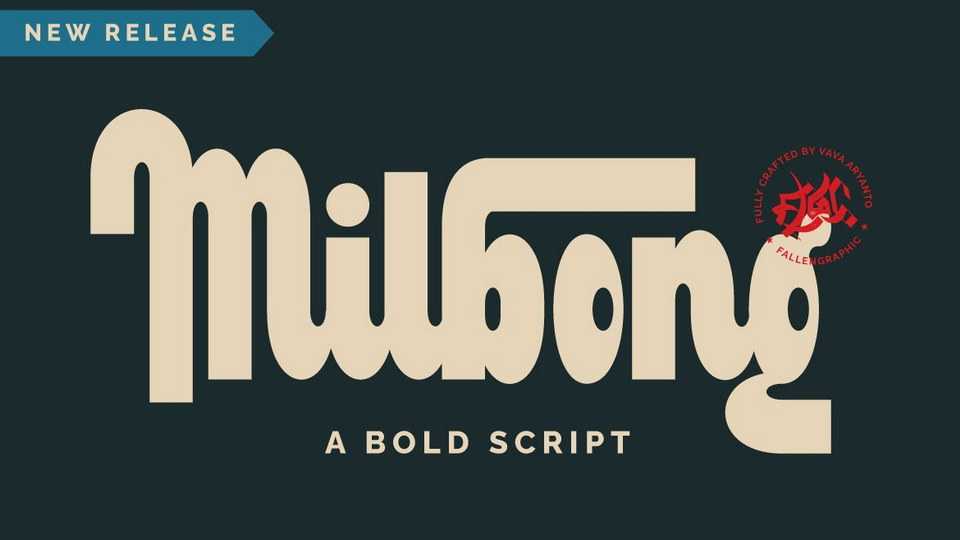
Download Milbong font, a bold script typeface designed under inspiration of vintage bar, hotel, barbershop signage. Milbong has a classic impression but still elegant suitable for modern and classic designs project.